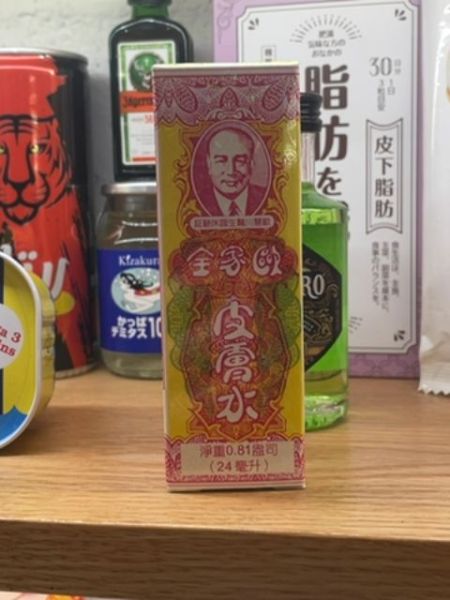
White Flower Embrocation
A medicinal product used for relieving pain such as headaches, muscle aches, and minor sprains.
Country of Origin
Japan
Typography
The typography blends traditional Kanji characters with bold serif Latin fonts for a classic feel. The Kanji script is elegantly intertwined with borders, adding to the historical look, while the Latin text uses a more straightforward, bold typeface that enhances readability and communicates trust.
Packaging
The packaging features a vibrant mix of pink, yellow, and white with intricate ornamental designs. The center showcases an image of a person surrounded by traditional decorative motifs, creating a vintage aesthetic reminiscent of early 20th-century medicinal products.
- It is a well-known traditional remedy in Asian countries.
- The packaging has a distinct and recognizable design.
- The product can be used for a variety of topical applications.